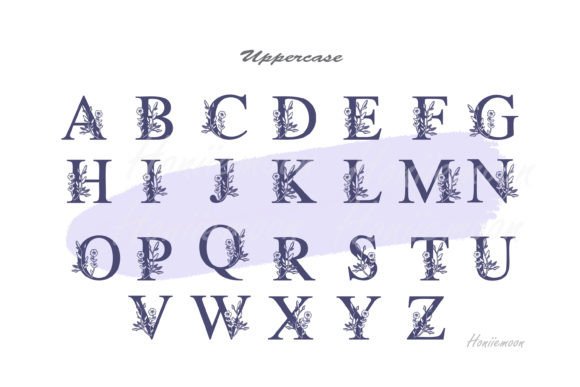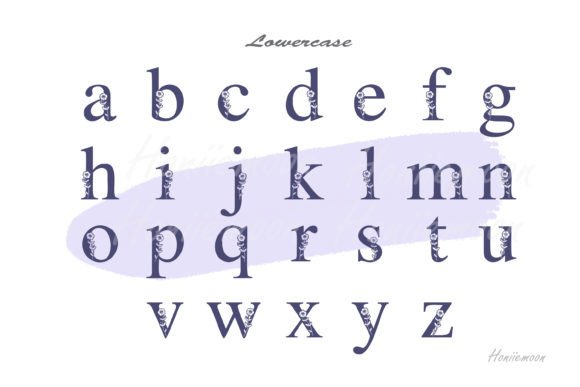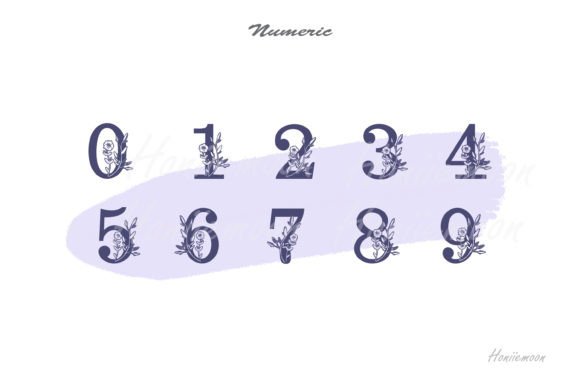
Introducing Blossom Font: The Ultimate Decorative Font for Creative Designs
Are you a designer, crafter, or DIY enthusiast looking for a font that can add a touch of fun and personality to your projects? Look no further than Blossom Font! This cool and decorative font is perfect for anyone who wants to create eye-catching designs that stand out from the crowd. In this article, we’ll take a closer look at Blossom Font, its features, and how you can use it to enhance your creative projects.
What is Blossom Font?
Blossom Font is a unique and playful decorative font that is sure to bring a smile to your face. Its cute and jolly design makes it perfect for a wide range of creative projects, from DIY crafts to digital designs. Whether you’re creating invitations, greeting cards, posters, or social media graphics, Blossom Font is the perfect choice.
Key Features of Blossom Font
- Colorful and Bold: Blossom Font is a vibrant and bold font that adds a pop of color to your designs. Its bright and cheerful design is sure to grab attention and make your projects stand out.
- Fun and Playful: This font has a fun and playful personality that is perfect for creative projects. Its whimsical design makes it ideal for DIY crafts, children’s party invitations, and other fun projects.
- Highly Versatile: Blossom Font can be used for a wide range of projects, from digital designs to print materials. Its versatility makes it a great addition to any designer’s toolkit.
How to Use Blossom Font in Your Designs
Blossom Font is a versatile font that can be used in a variety of creative projects. Here are some ideas to get you started:
- DIY Crafts: Use Blossom Font to add a personal touch to your DIY crafts, such as handmade cards, gift tags, and scrapbook pages.
- Digital Designs: Add Blossom Font to your digital designs, such as social media graphics, blog posts, and email newsletters.
- Invitations and Party Decor: Use Blossom Font to create eye-catching invitations and party decor, such as birthday party invitations, baby shower decorations, and wedding stationery.
- Graphic Design Projects: Incorporate Blossom Font into your graphic design projects, such as logos, brochures, and posters.
Tips for Getting the Most Out of Blossom Font
Here are some tips for getting the most out of Blossom Font:
- Experiment with Colors: Blossom Font comes in a range of colors, so don’t be afraid to experiment and find the perfect color scheme for your project.
- Mix and Match: Combine Blossom Font with other fonts and design elements to create a unique and eye-catching design.
- Use it Sparingly: While Blossom Font is a fun and playful font, it can be overwhelming if used too much. Use it sparingly to add a touch of personality to your designs.
Blossom Font is a fun and decorative font that is perfect for designers, crafters, and DIY enthusiasts. Its colorful and bold design makes it ideal for a wide range of creative projects, from DIY crafts to digital designs. With its ease of use and versatility, Blossom Font is a great addition to any designer’s toolkit. So why wait? Download Blossom Font today and start creating fun and eye-catching designs that bring your imagination to life!